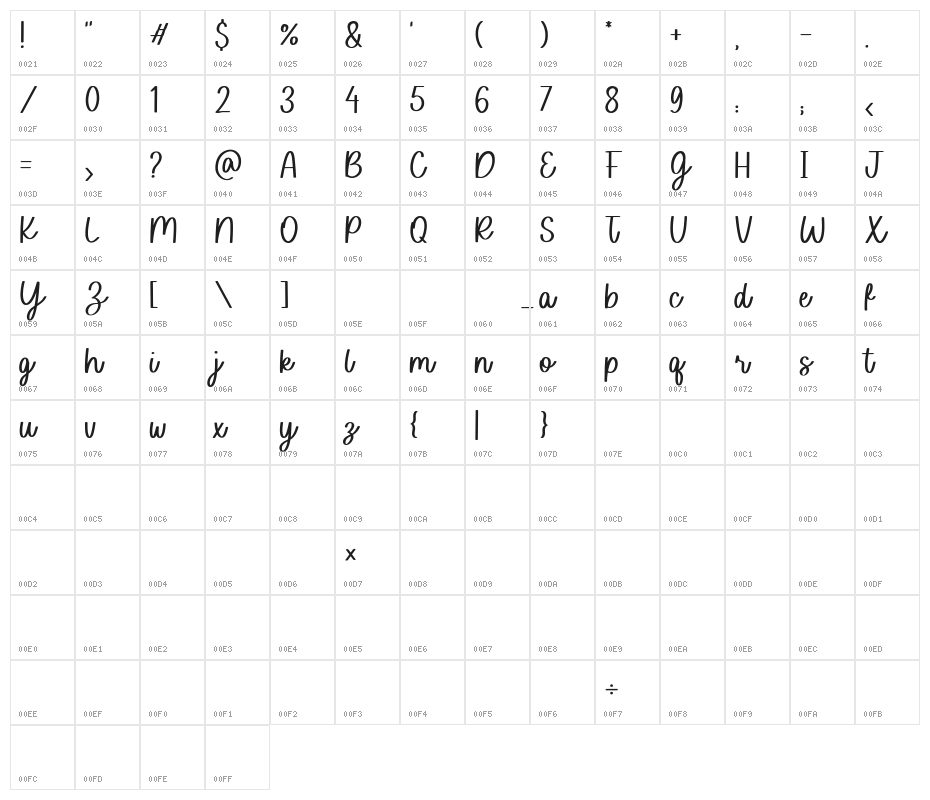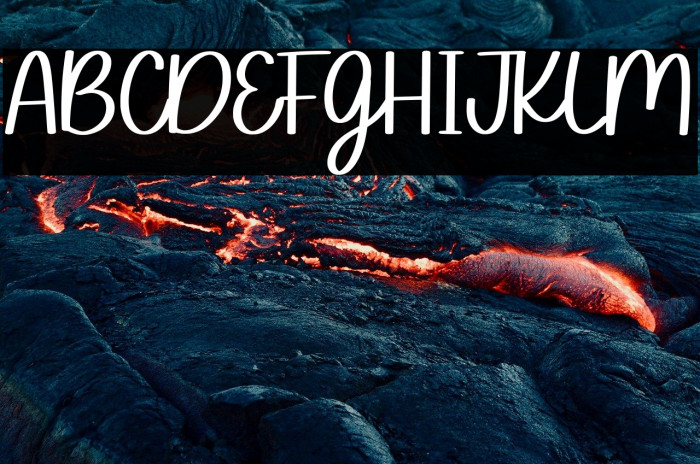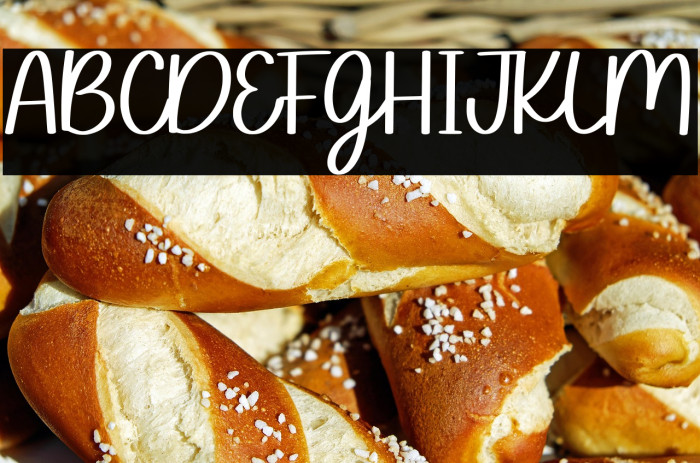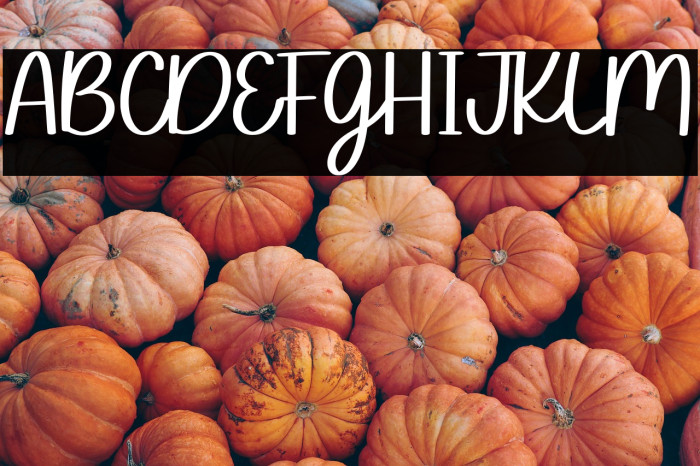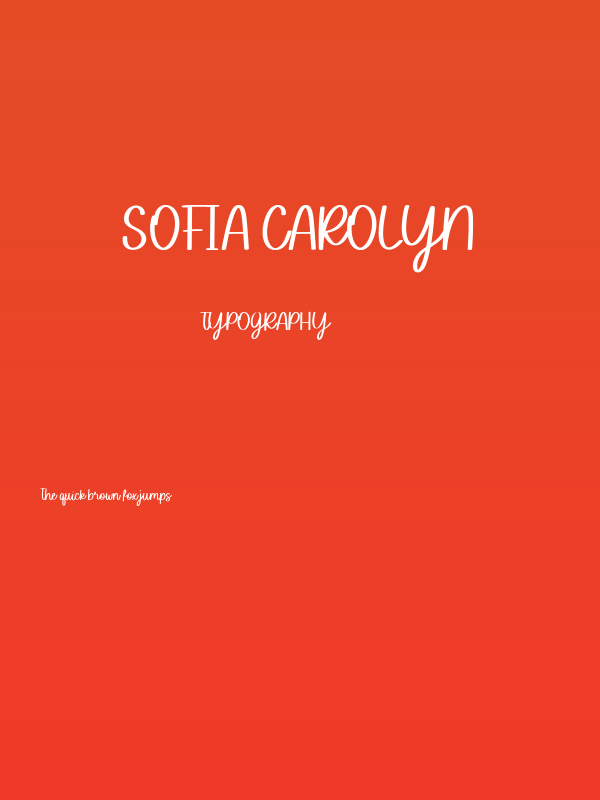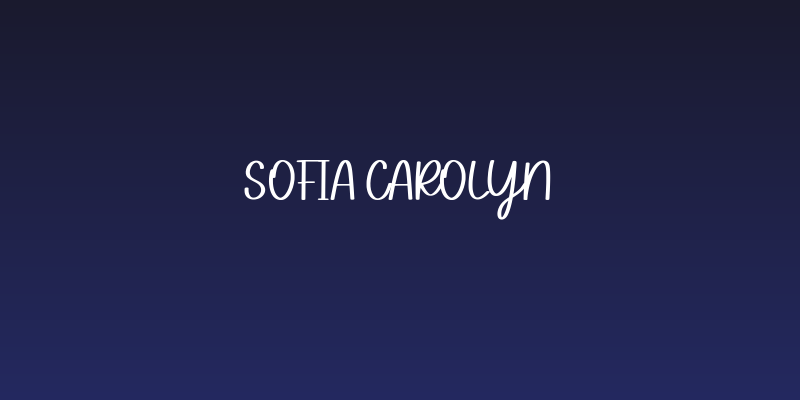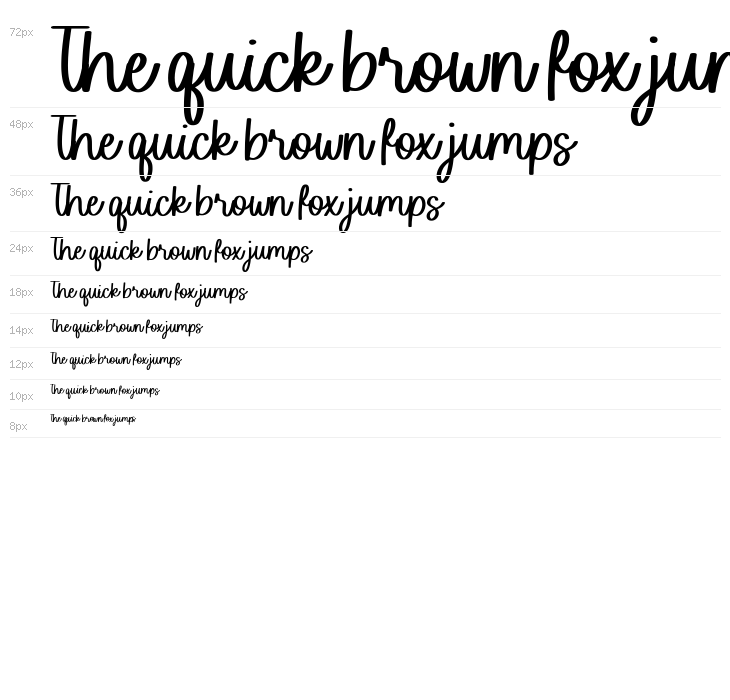
Sofia Carolyn Font
Sofia Carolyn Description
This font features a playful and flowing script style, characterized by its smooth, continuous strokes and a handwritten appearance. The uppercase letters are tall and slightly narrow, with a consistent slant that adds a dynamic feel. Lowercase letters maintain a cohesive look with rounded forms and elegant loops, enhancing the font's casual yet sophisticated vibe. The numerals are well-integrated, matching the overall style with a slight slant and rounded edges. Special characters are thoughtfully designed to complement the alphabet, ensuring versatility in various design contexts.
| Overall Style | Casual, Elegant |
| Use Case | Logos, Invitations, Social Media |
| Proposed Projects | Ideal for wedding invitations, greeting cards, branding projects, and social media graphics. |